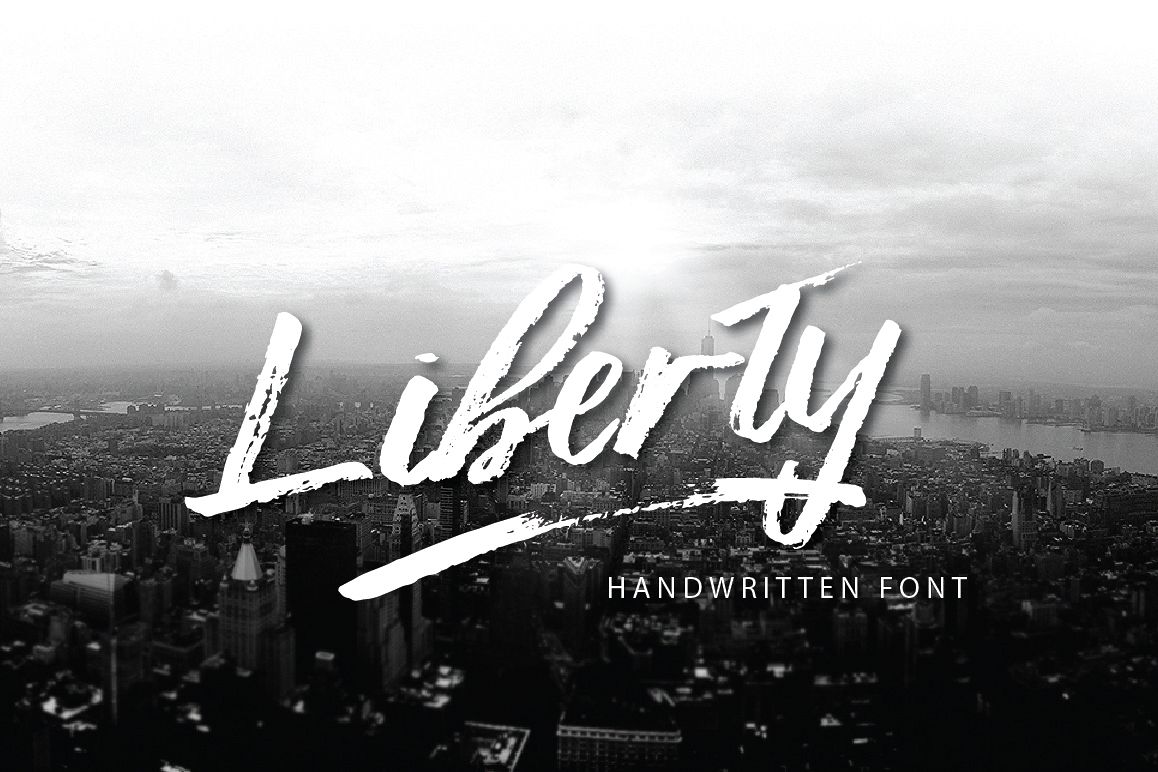
Liberty Brush
Liberty brush
Introducing: Liberty brush font, handwritten font with a personal
charm. With quick dry strokes, Liberty brush font is perfect for
branding projects, homeware designs, product packaging - or simply as a
stylish text overlay to any background image.